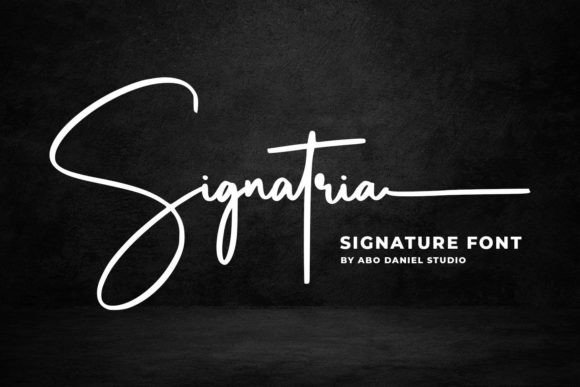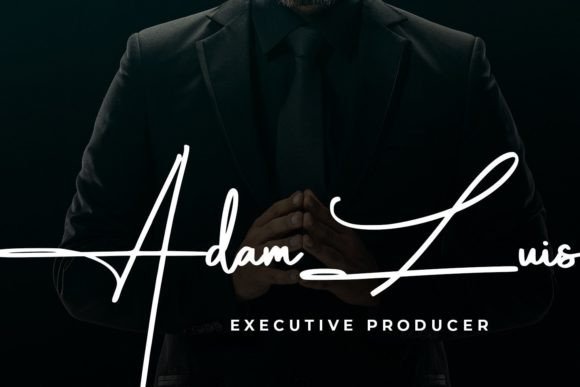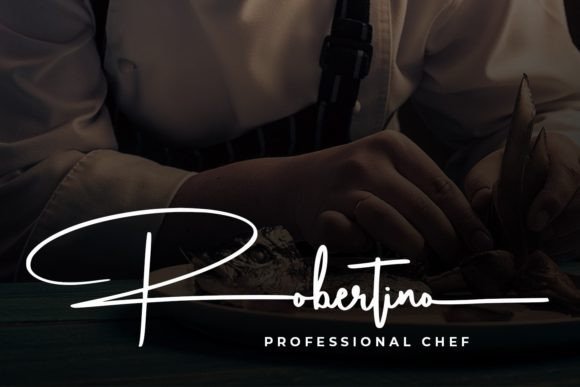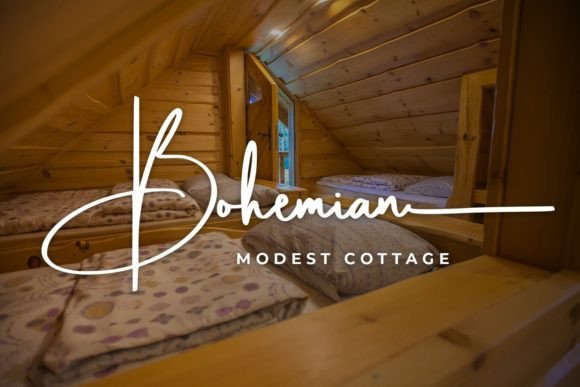
Signatria Font
About the Signatria Font
Unleash your creativity with Signatria Font, a versatile font perfect for a wide range of applications. Signatria is a signature font that’s easy to read, and simple, but still with that handwritten feel. Features alternates and two sets of lowercase, uppercase, punctuation, and numbers. It’s perfect for greeting cards, magazines, headers, social media, and more.
Signatria Font Usage Examples
Signatria Font Example